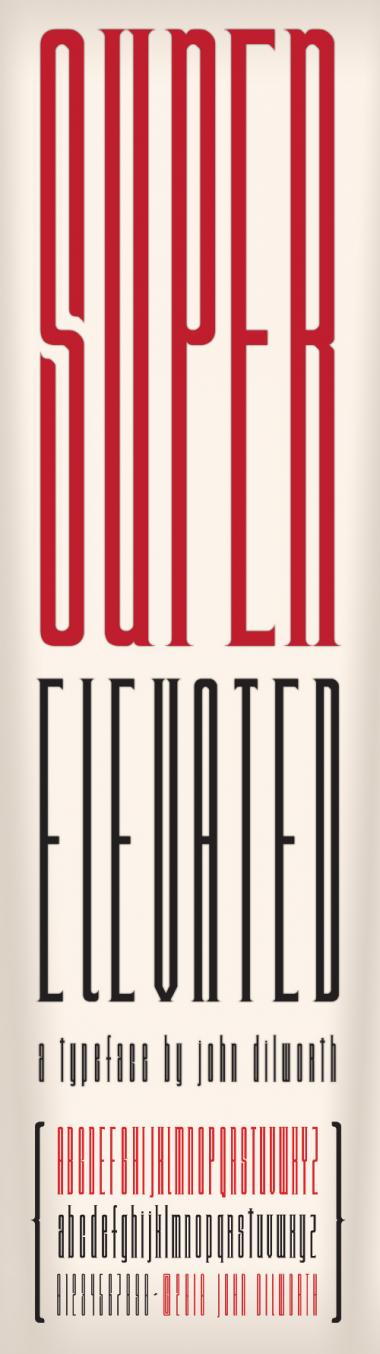
• This set is inspired by numbers found on the inside of elevator doors. I've taken the basic letter forms and stretched them out just to the point of being almost unreadable. The letters are also reminiscent of movie poster lettering. This may be useful for effect, or when you really need to fit a lot of text in a very very narrow space.
Here's a sample image, in use with a bit more tracking the letter shapes could create a nice style.
More than excellent, your sample shows how the vey big sizes magnify this font, plenty of charm in its shapes, I have a collection of Ultra Thin Fonts, close to Codebars, generally what I like is the clean, scientific feeling, but this one is completely different, it has much elegance, these delicate serifs allied with the rounded ends placed just in the most efficient place, the overdetail evident work in an apparently simplified style make of Super Elevated far more the most beautiful of my ultrathin collection. Thanks for sharing.
Though the design is simple, it looks nice and elegant on the demo pic. Good for movie posters. 10/10
WOW at small I have'nt notice the sérif... But at bigger size your design is awsome
Elevated to an even higher plane ... this is confident, elegant and of such pleasing proportions it is worthy of residing in the penthouse. 10/10
I decided to re-do the demo pic to show off the tall letters at display sizes (which is the intent of the design. *not recommended for small print* )
Meanwhile that one tiny K: